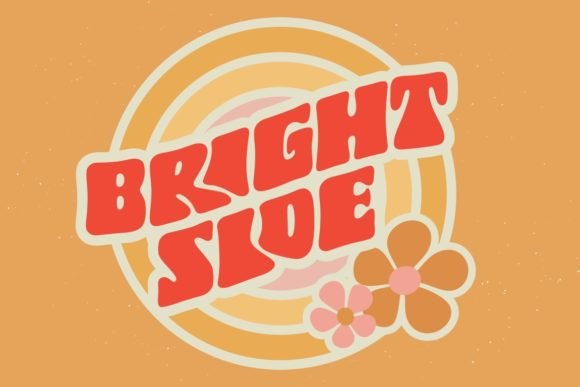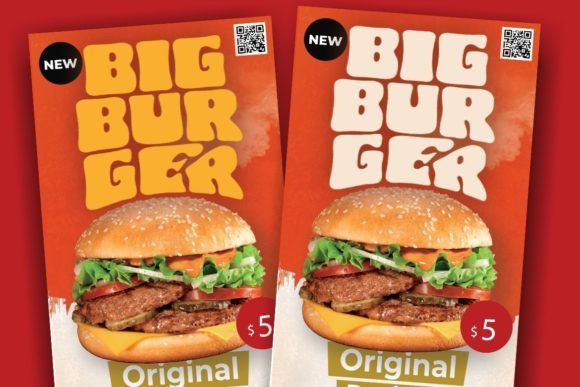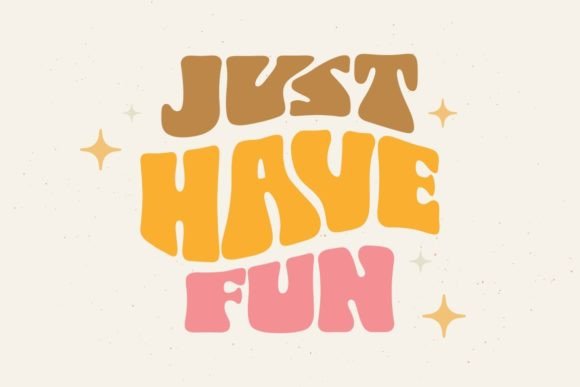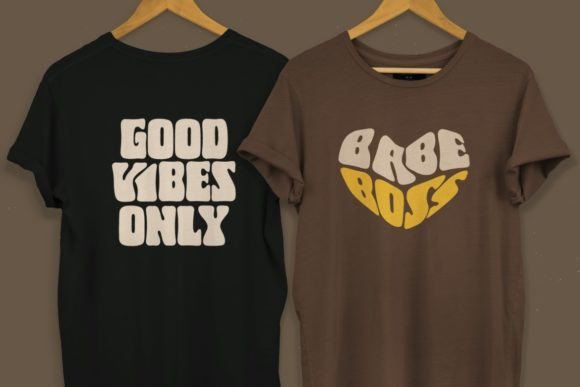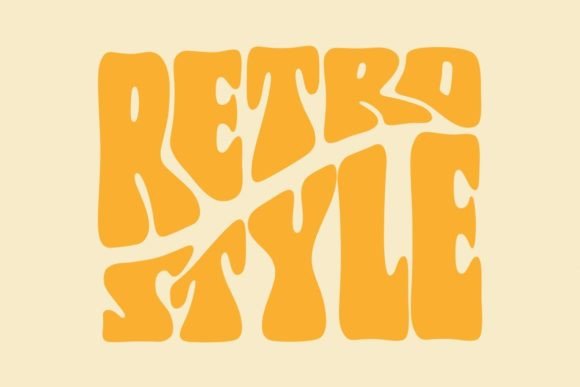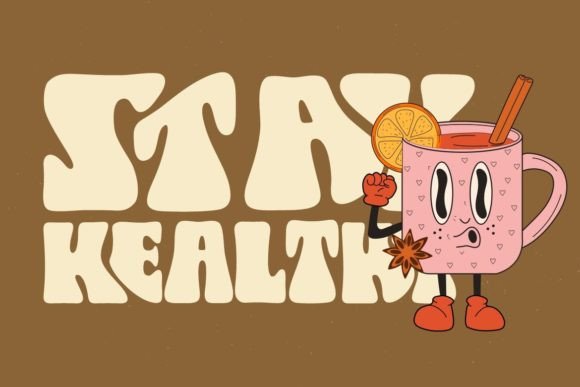
Unlock the Funky Vibes of Your Design
You’ve finally landed on that perfect idea for your next design project – a bold, eye-catching poster that’s sure to make a statement. As you start brainstorming, you’re searching for the perfect font to match your creative vision. That’s when you stumble upon the Fat Kat Font – a bold retro display font that’s packed with a fun, modern twist.
This fantastic font is designed to bring a cool and funky vibe to your most creative projects. Whether you’re working on a poster, social media graphics, or even a website, Fat Kat Font is the perfect addition to make your design stand out. As a designer, you know how valuable it is to have a versatile and unique font at your disposal – and Fat Kat Font delivers.
Fat Kat Font Key Features
- Unique Characteristics: The Fat Kat Font features a bold, playful design with a unique blend of modern and vintage elements, making it perfect for use in logos, branding, and creative projects.
Fat Kat Font Review
Overall, I think Fat Kat Font is a fun and quirky addition to any design project. Here are some things that work well:
- ✨ The bold, playful style of the font makes it perfect for headings and titles.
- ✨ The font’s irregularities give it a handmade feel that adds character to designs.
- ✨ The font is highly customizable, with a wide range of font weights and styles to choose from.
However, there are a few limitations to keep in mind:
- ⚠️ The font may not be suitable for large blocks of text, as the irregularities can make it difficult to read.
- ⚠️ The font may not be the best choice for formal or professional designs, as it can come across as too playful.
- ⚠️ Some users may find the font’s bold style overwhelming or distracting.
Overall, I think Fat Kat Font is a great choice for designers who want to add some personality and whimsy to their designs. Just be mindful of the limitations and use it sparingly to avoid overwhelming the viewer.
Fat Kat Font is ideal for creating eye-catching headlines, logos, and social media graphics. To get the most out of it, use it in bold, uppercase, or italic styles to add emphasis and visual interest. Common use cases include:
- Headlines and titles
- Logos and branding
- Social media graphics and posts
- Advertising and marketing materials
- Illustrations of cats in various poses and expressions
- Colorful background patterns featuring cat shapes or stripes
- Minimalist design elements to balance out the playfulness of the font
- Distressed textures and vintage-inspired patterns
- Illustrations of old-world travel scenes, such as vintage airplanes or ships
- Minimalist design elements to balance out the playfulness of the font
- Hand-drawn illustrations of cats or other whims
Project 3: Handmade Stationery Set
The Fat Kat Font is perfect for a handmade stationery set, adding a touch of personality and charm to the design.
To use Fat Kat Font in this project, pair it with hand-drawn illustrations and watercolor backgrounds. Use the font to create custom labels and headers for the stationery set.